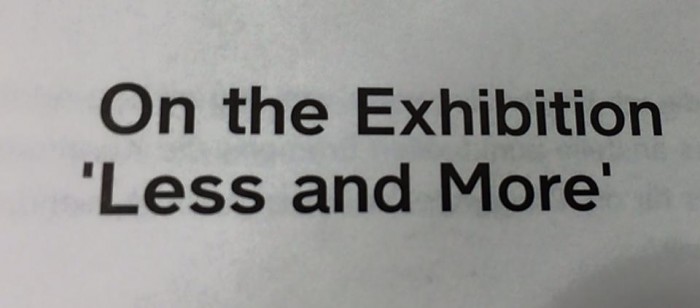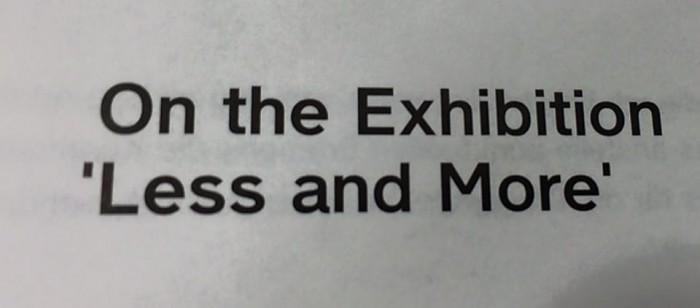
Looking for this Grotesk font. Used on the cover of the book from "Gestalten": "Less and More: The Design Ethos of Dieter Rams"
Not too bad, though capital "M" is different, and the bowl of the lower case "e" is shorter :(
Dort handelt es sich, zumindest ganz oben, ziemlich sicher um die Rotis.